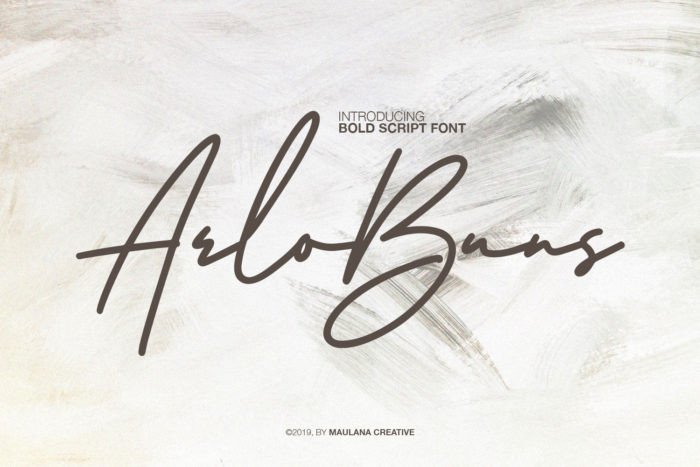
Arlobuns Handwritten Font
Give your designs an authentic handcrafted feel. “Arlobuns Signature” is perfectly suited to signature, stationery, logo, typography quotes, magazine or book cover, website header, clothing, branding, packaging design and more.